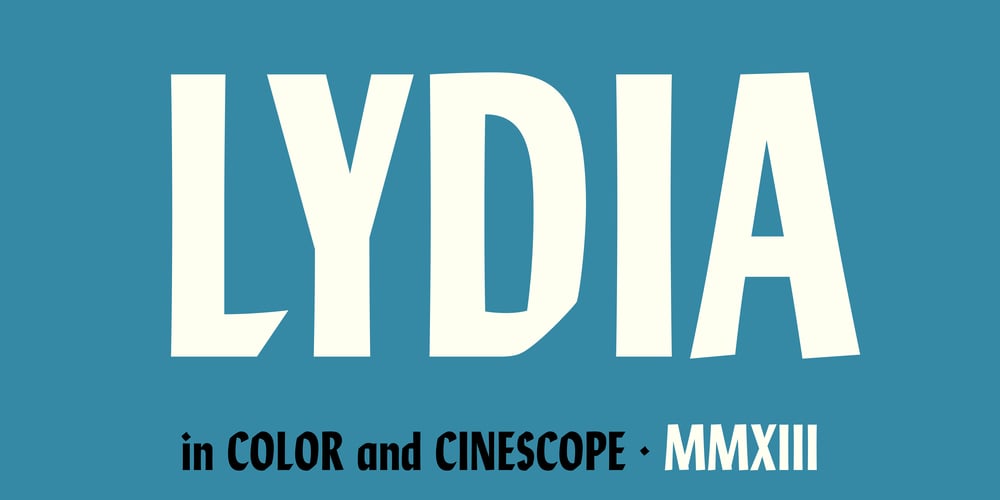
Lydia Font Family was designed by Benjamin Critton and published by Colophon Foundry. Lydia contains 2 styles and family package options. Lydia is a calligraphic sans-serif typeface, re-drawn and re-developed by Benjamin Critton Art Dept. over the course of several years beginning in the Spring of 2010. It is a bold, condensed iteration of Warren Chappell’s Lydian, drawn on behalf of New York’s American Type Founders (ATF) in 1938 and successively updated and expanded in 1940 & 1946.Lydia Bold Condensed was initially drawn for a poster announcing the arrival of visiting typography critic Matthew Carter, who swung through the city of New Haven one spring day while on his way to the premises of the MacArthur Foundation.Lydia is concurrently fluid and sharp, intended to appear wrought simultaneously by both pen and machine. It follows respectfully in the footsteps of Chappell’s Canon, Edwin Shaar’s Valiant (MT, 1940) and Tom Carnase’s Honda (ITC, 1970).